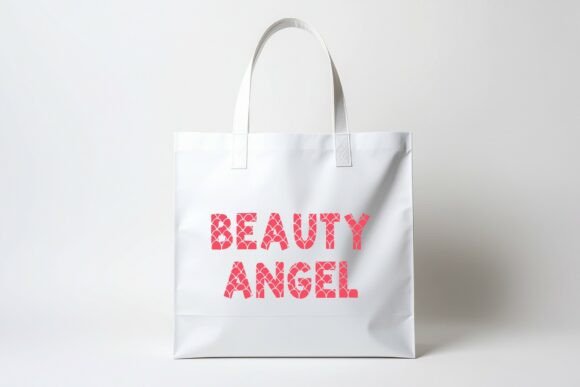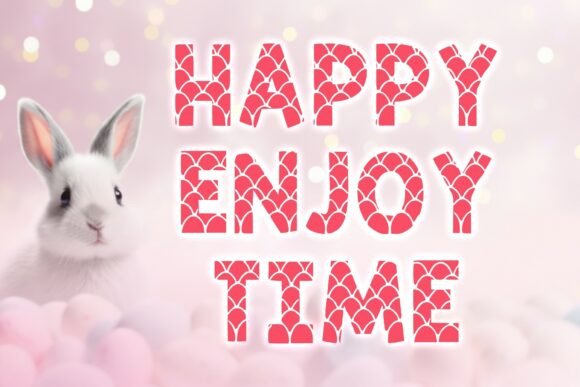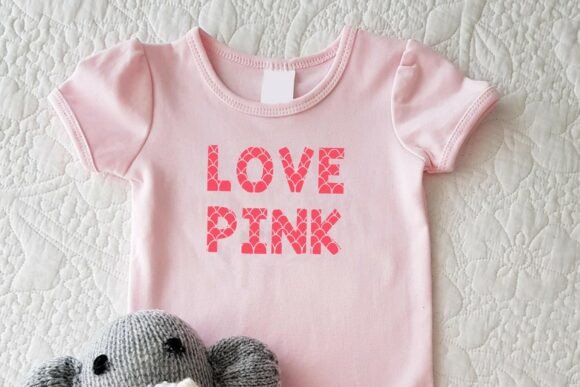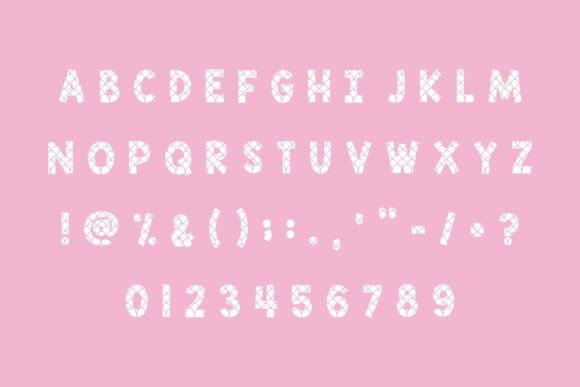
Bunny Sweety Font: The Perfect Addition to Your Easter and Spring Designs
Are you looking for a font that can add a playful and charming touch to your creative projects? Look no further than Bunny Sweety Font! This delightful display font is designed to bring a sweet Easter vibe to your designs, making it perfect for a wide range of projects, from Easter crafts and kids merchandise to greeting cards, party invitations, and seasonal branding.
A Unique and Eye-Catching Design
Bunny Sweety Font features bold letterforms filled with a cute scallop pattern, creating a unique and eye-catching look that’s sure to grab attention. The font’s bold and decorative style makes it ideal for headlines and standout typography, adding a soft, sweet, and joyful touch to your designs. Whether you’re creating Easter-themed crafts, designing merchandise for kids, or planning a party, Bunny Sweety Font is the perfect choice.
Bunny Sweety Font is a versatile font that can be used for a variety of projects, including:
- Easter crafts: Add a playful touch to your Easter crafts, such as Easter egg decorations, bunny-themed cards, and spring-themed scrapbooking projects.
- Kids merchandise: Create adorable kids merchandise, such as t-shirts, stickers, and coloring books, with Bunny Sweety Font.
- Greeting cards: Design beautiful and playful greeting cards for Easter, birthdays, and other special occasions.
- Party invitations: Create eye-catching party invitations for Easter-themed parties, baby showers, and other celebrations.
- T-shirts and sublimation prints: Use Bunny Sweety Font to create fun and playful designs for t-shirts, sublimation prints, and other apparel.
- Stickers and Cricut & Silhouette projects: Add a sweet touch to your stickers, Cricut, and Silhouette projects with Bunny Sweety Font.
- Seasonal branding: Use Bunny Sweety Font to create a cohesive brand identity for your Easter-themed products or services.
Why Choose Bunny Sweety Font?
There are many reasons why Bunny Sweety Font is the perfect choice for your Easter and spring designs:
- Playful and charming design: Bunny Sweety Font features a playful and charming design that’s sure to bring a smile to your face.
- Unique and eye-catching look: The font’s bold letterforms filled with a cute scallop pattern create a unique and eye-catching look that’s perfect for headlines and standout typography.
- Versatile: Bunny Sweety Font can be used for a wide range of projects, from Easter crafts to seasonal branding.
Tips for Using Bunny Sweety Font
Here are some tips for using Bunny Sweety Font in your designs:
- Experiment with colors: Bunny Sweety Font looks great in a variety of colors, from pastel shades to bright and bold hues.
- Pair with other fonts: Try pairing Bunny Sweety Font with other fonts to create a unique and interesting look.
- Use for headlines and titles: Bunny Sweety Font is perfect for headlines and titles, adding a playful and charming touch to your designs.
- Don’t be afraid to get creative: Bunny Sweety Font is a versatile font that can be used in a variety of creative ways, so don’t be afraid to experiment and try new things!
Bunny Sweety Font is a playful and charming display font that’s perfect for adding a sweet Easter vibe to your creative projects. With its bold and decorative style, unique and eye-catching look, and versatility, Bunny Sweety Font is the perfect choice for designers and crafters of all levels. Whether you’re creating Easter crafts, designing kids merchandise, or planning a party, Bunny Sweety Font is sure to bring a smile to your face and a touch of joy to your designs.